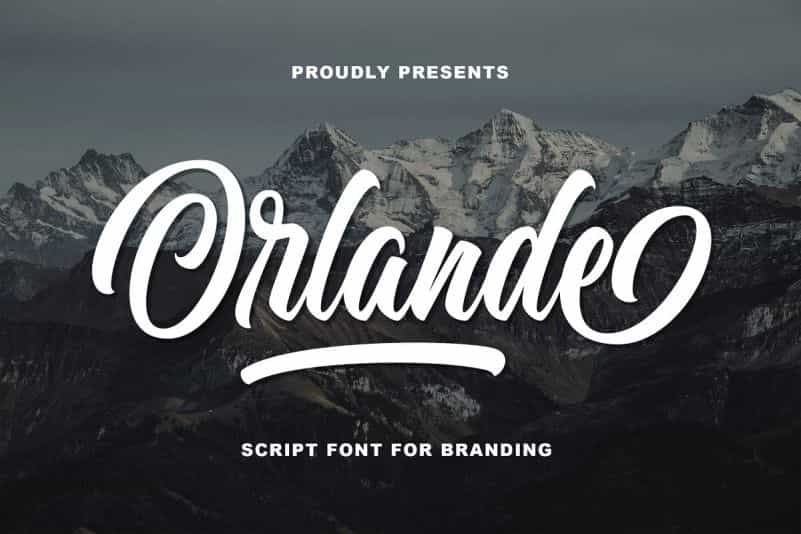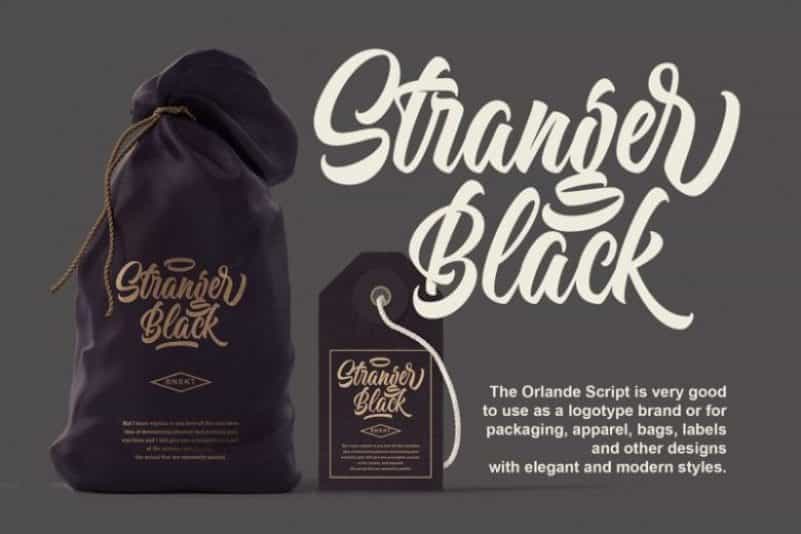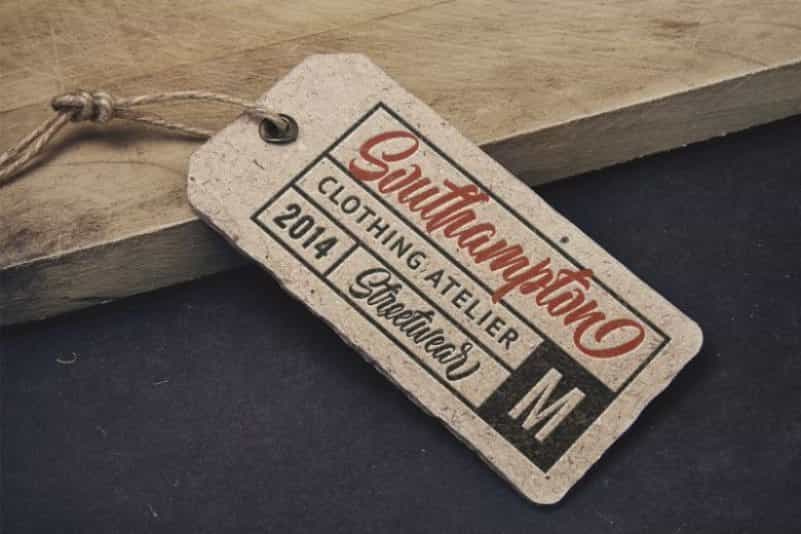
Orlande Font is a script font suitable for branding, designed by Blankids Studio. This is a bold feminine font to depict the confidence and comfort in every usage. As influenced by the urban script fonts with sharp and beautiful letters to create fonts that are modern, trendy and elegant.